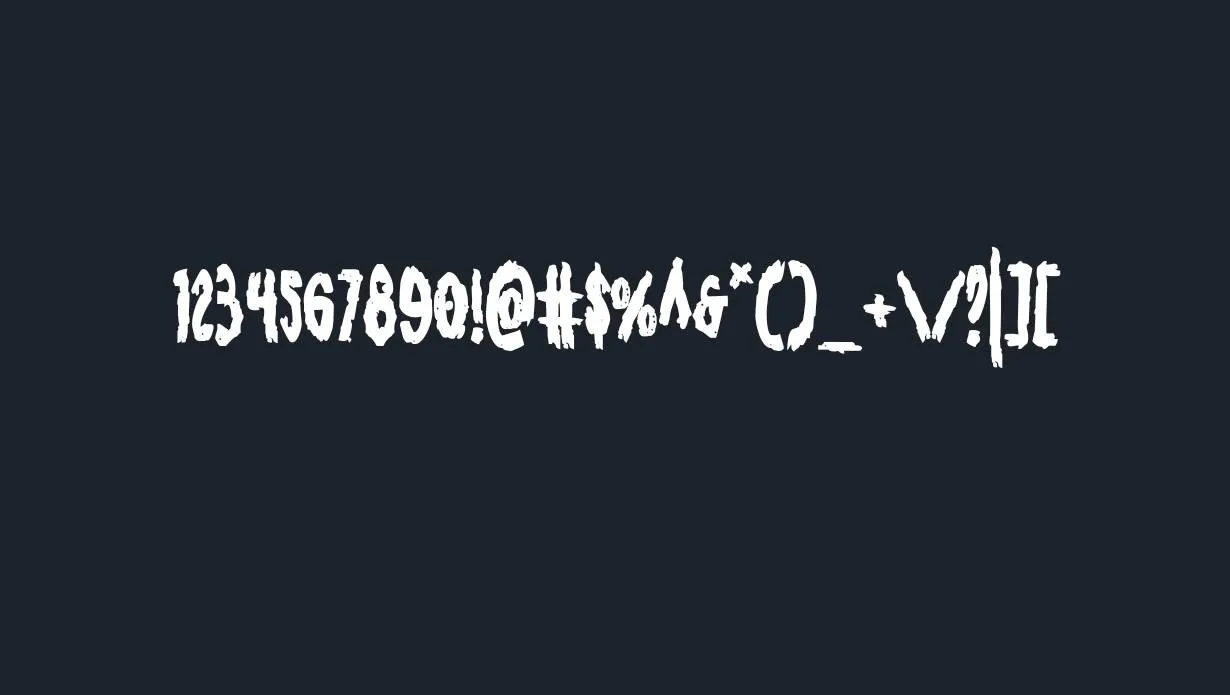
Monsterama Font is a fancy-type horror typeface. It was designed by Daniel Zadorozny. The look of this font is very scary. You can use it for making attractive logos, posters, banners, flyers, and titles of horror movies and video games.
It has 244 characters, 210 glyphs, and 1000 units per Em. The weight of this font is medium(normal) and its width is semi-compensed. Unicode supported BMP only. It has 13 different styles and weights which makes it perfect for all projects personal or commercial.
| Name | Monsterama Font |
| Designer | Daniel Zadorozny |
Monsterama Font Family